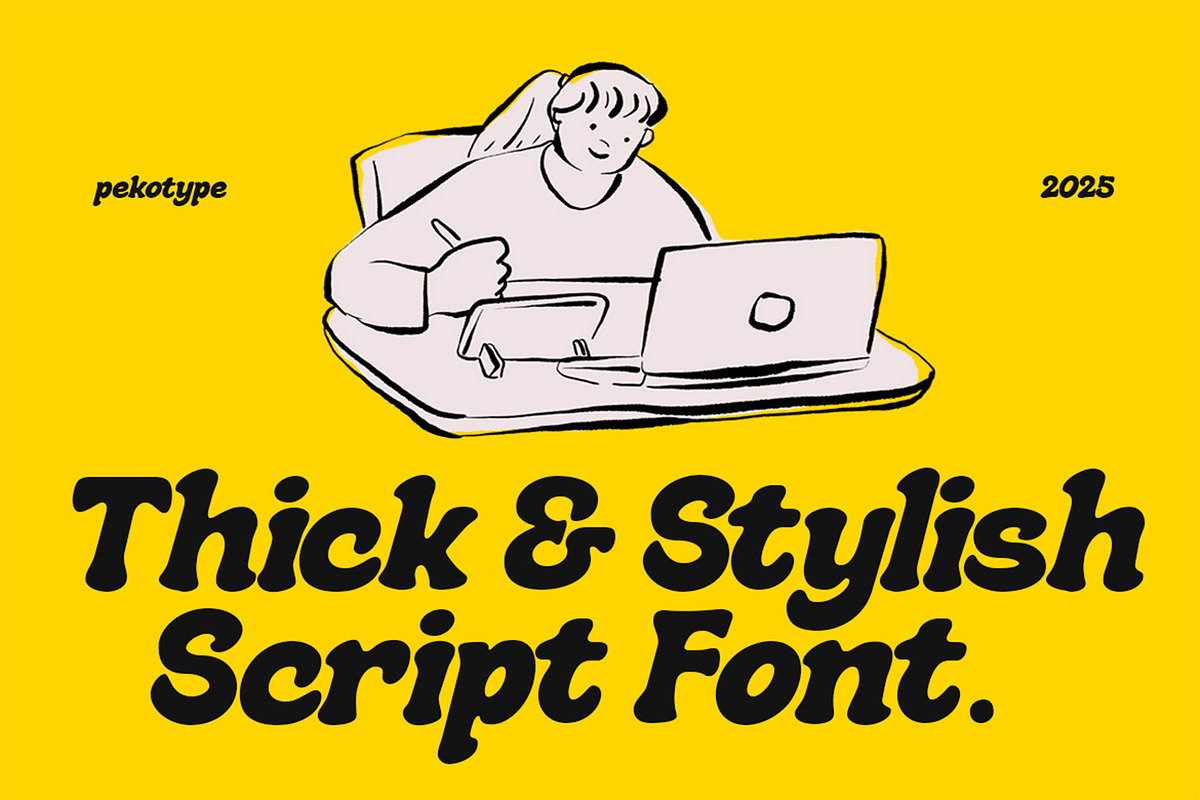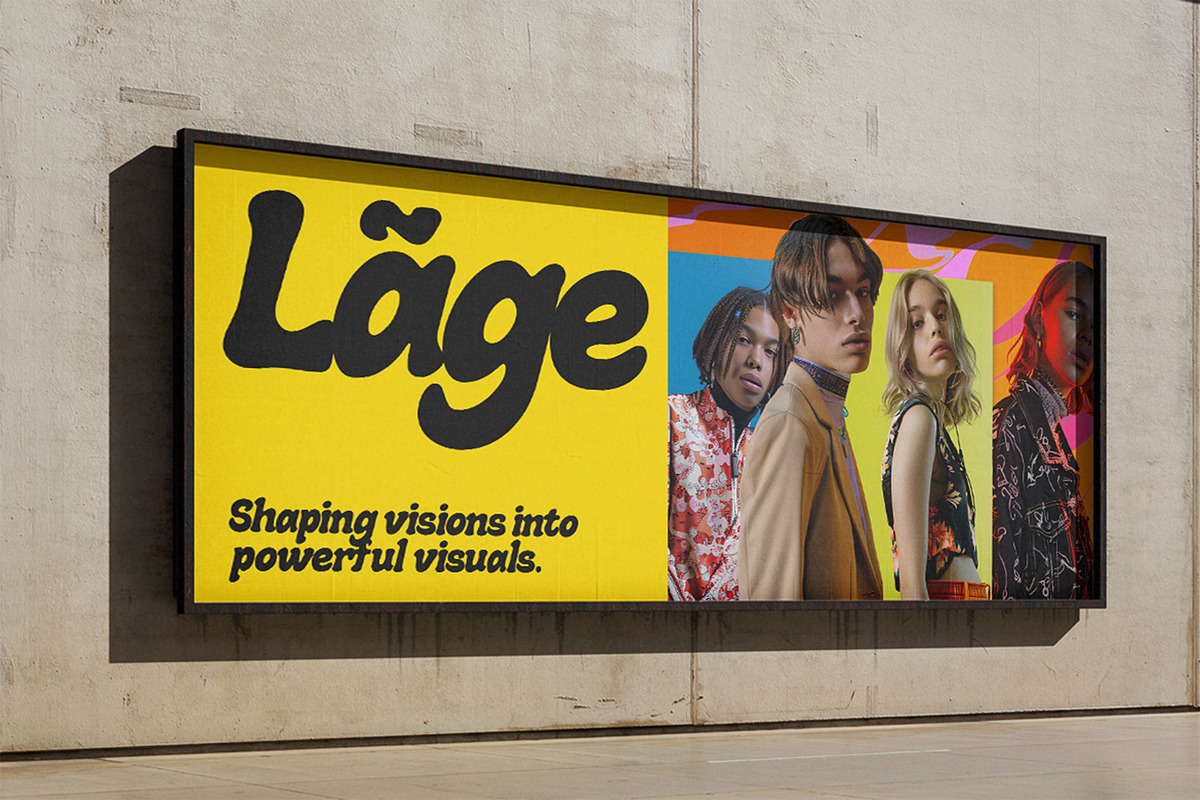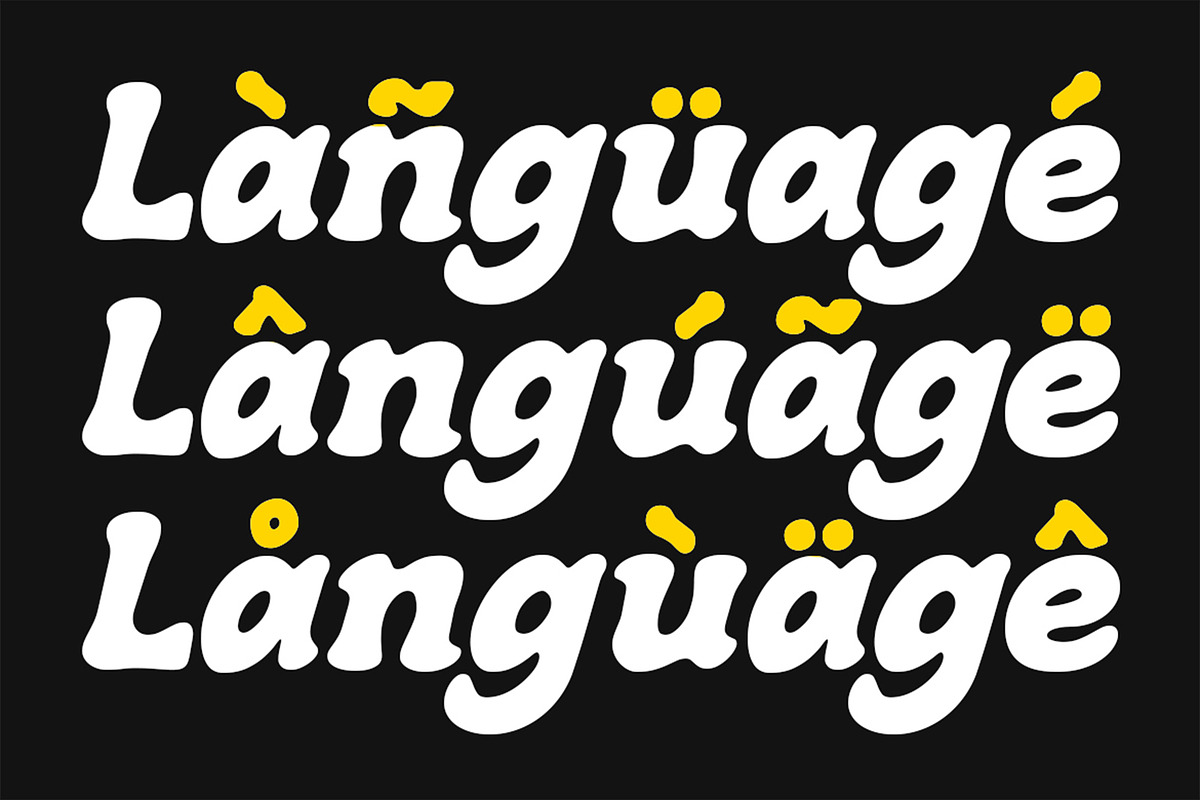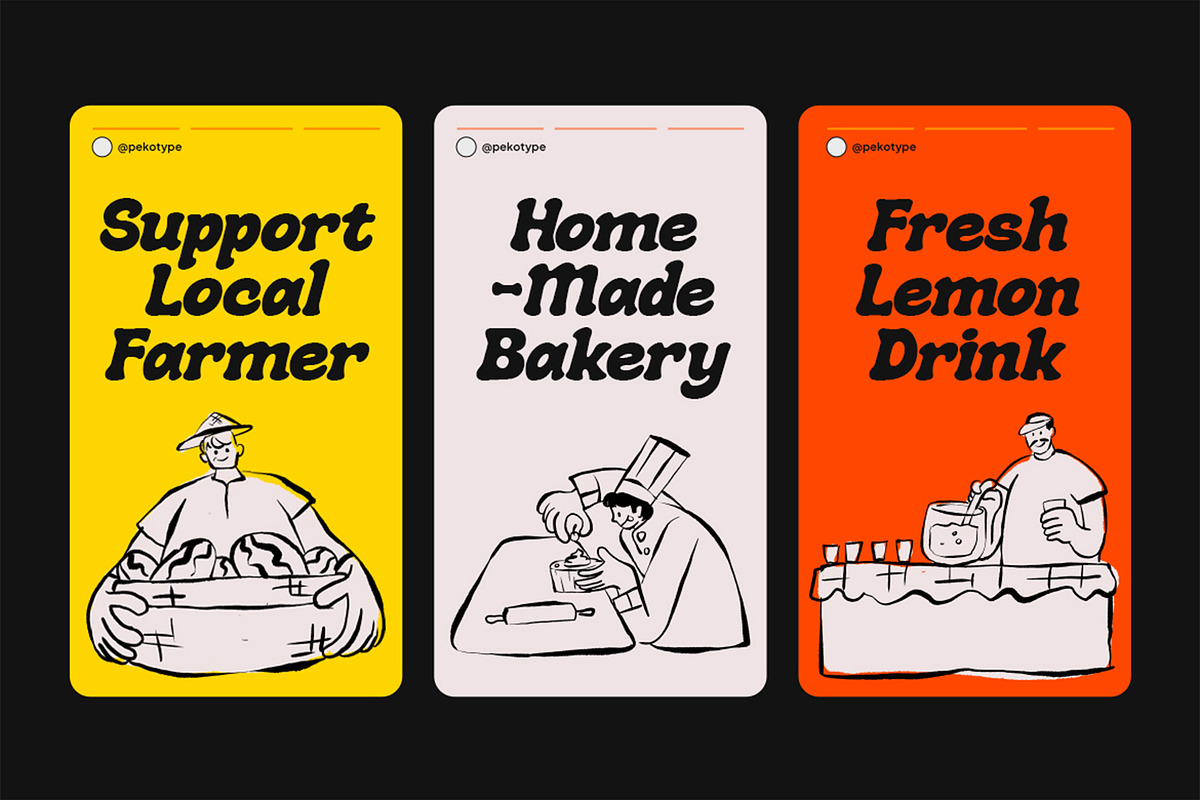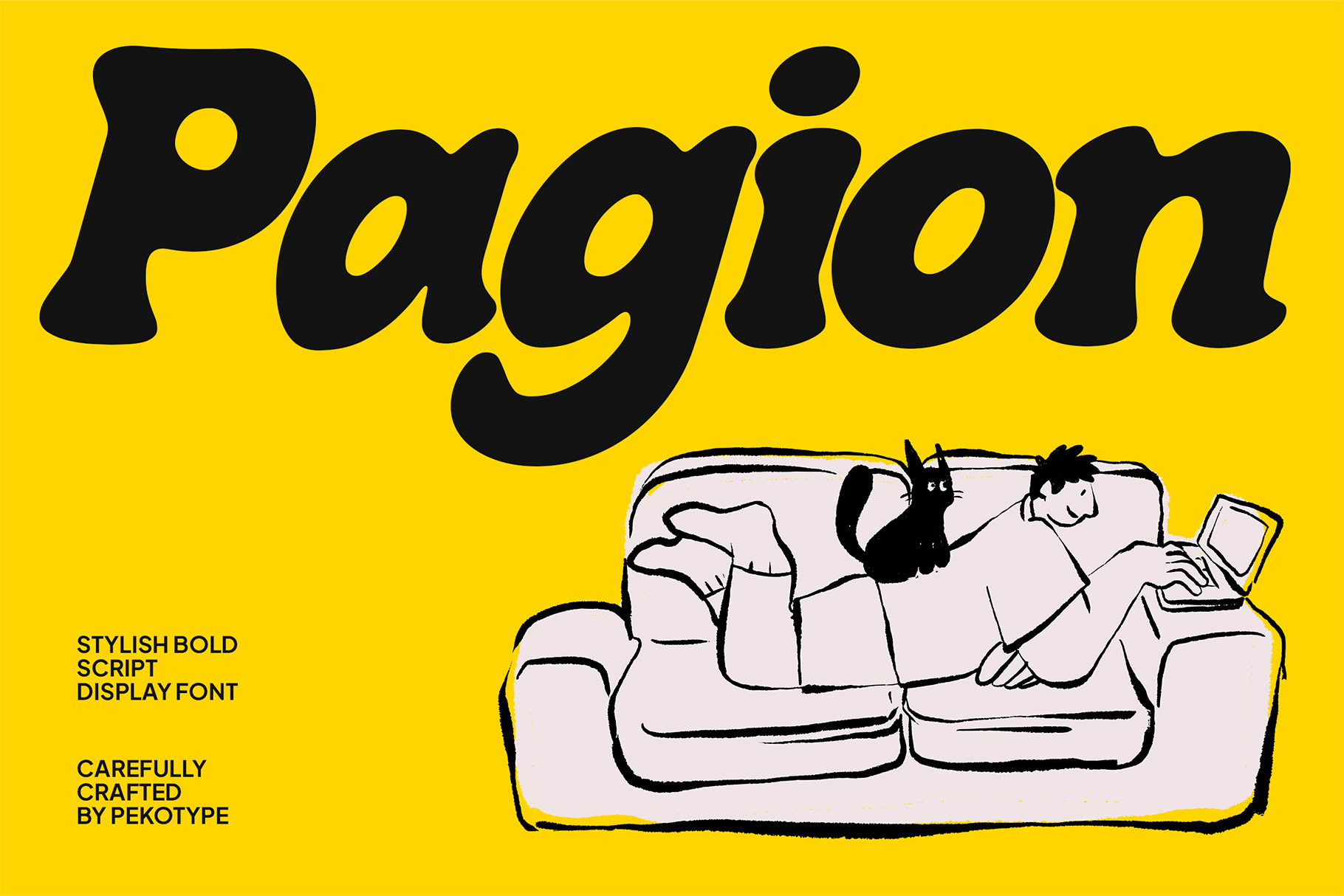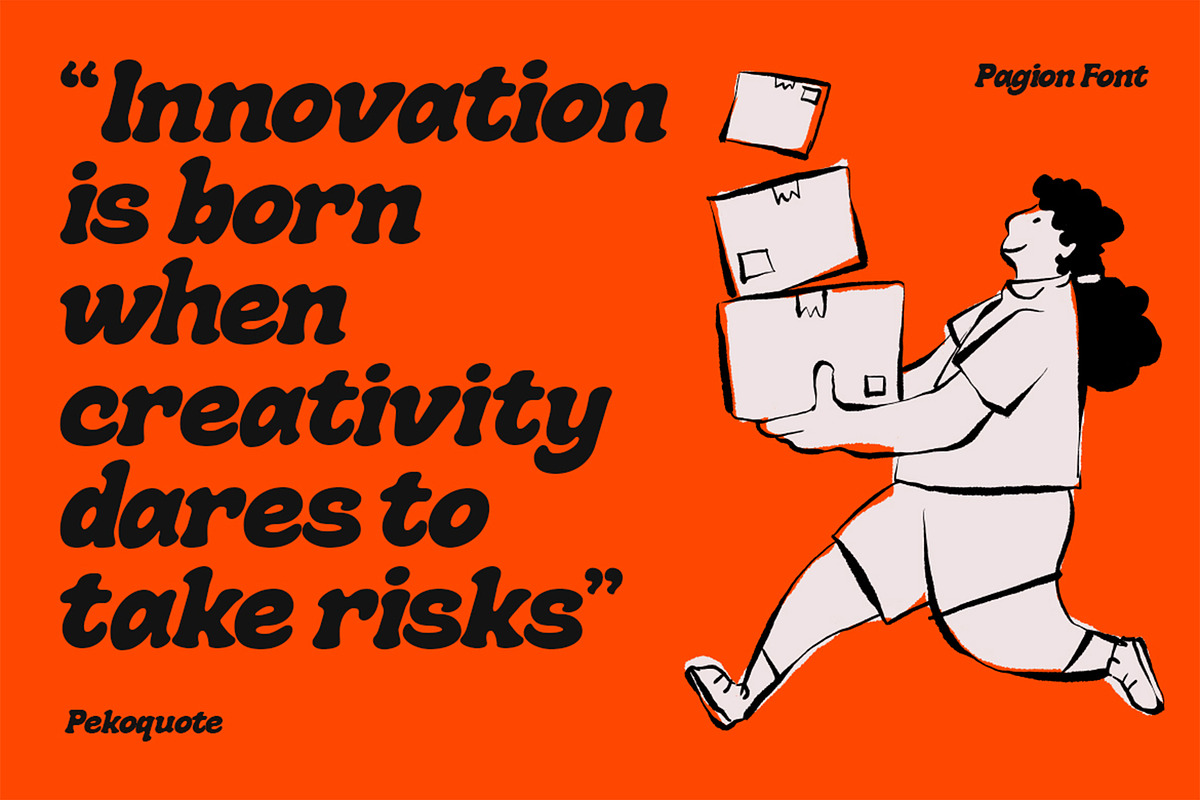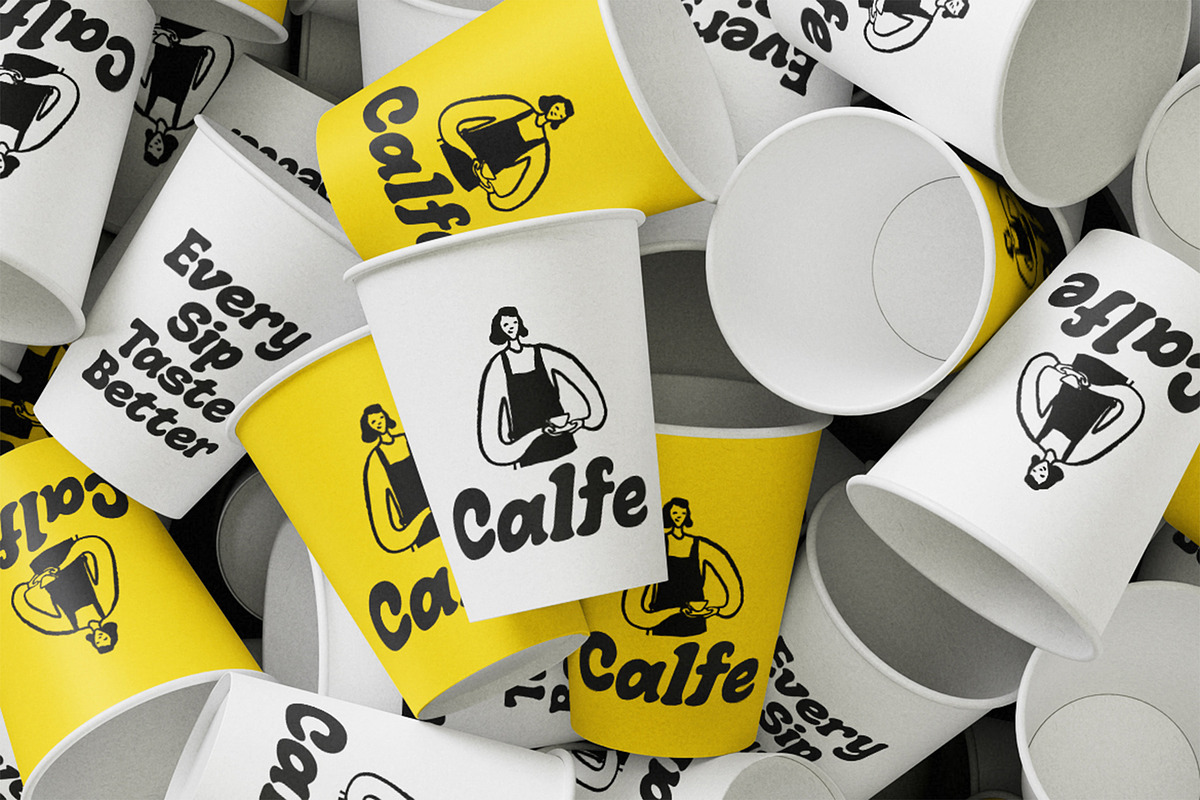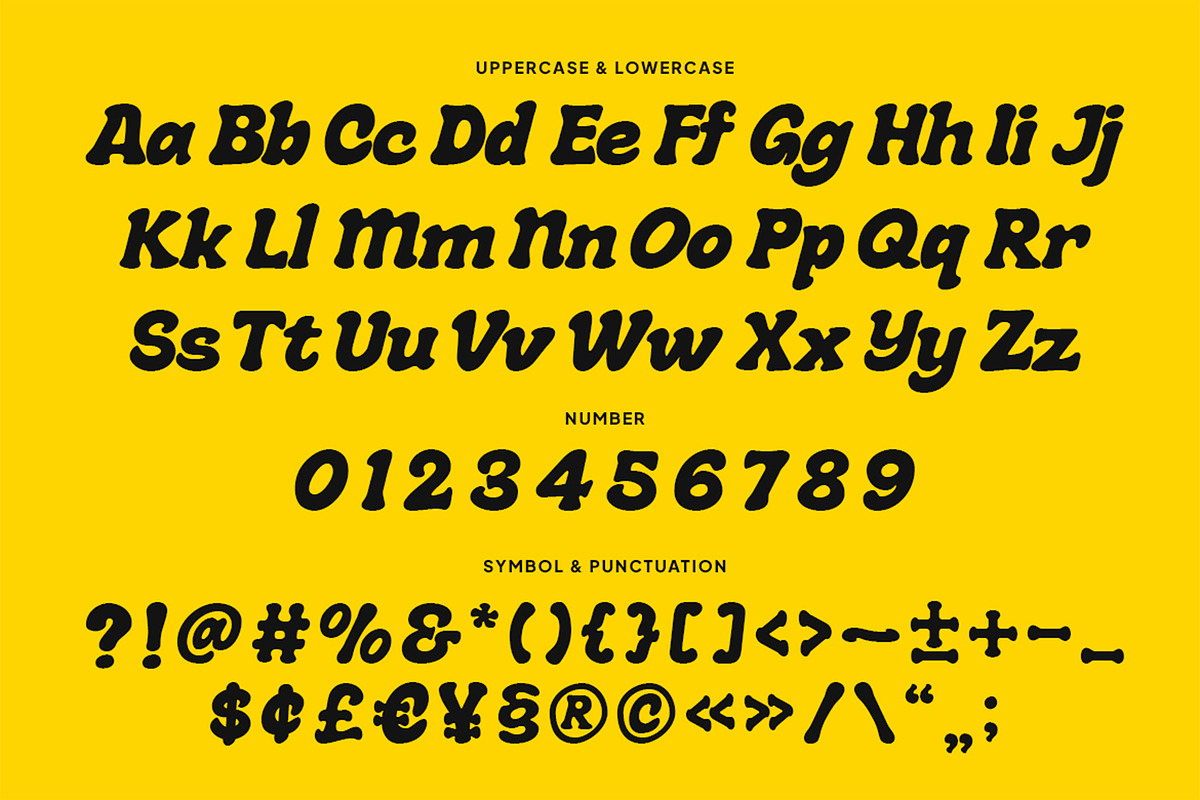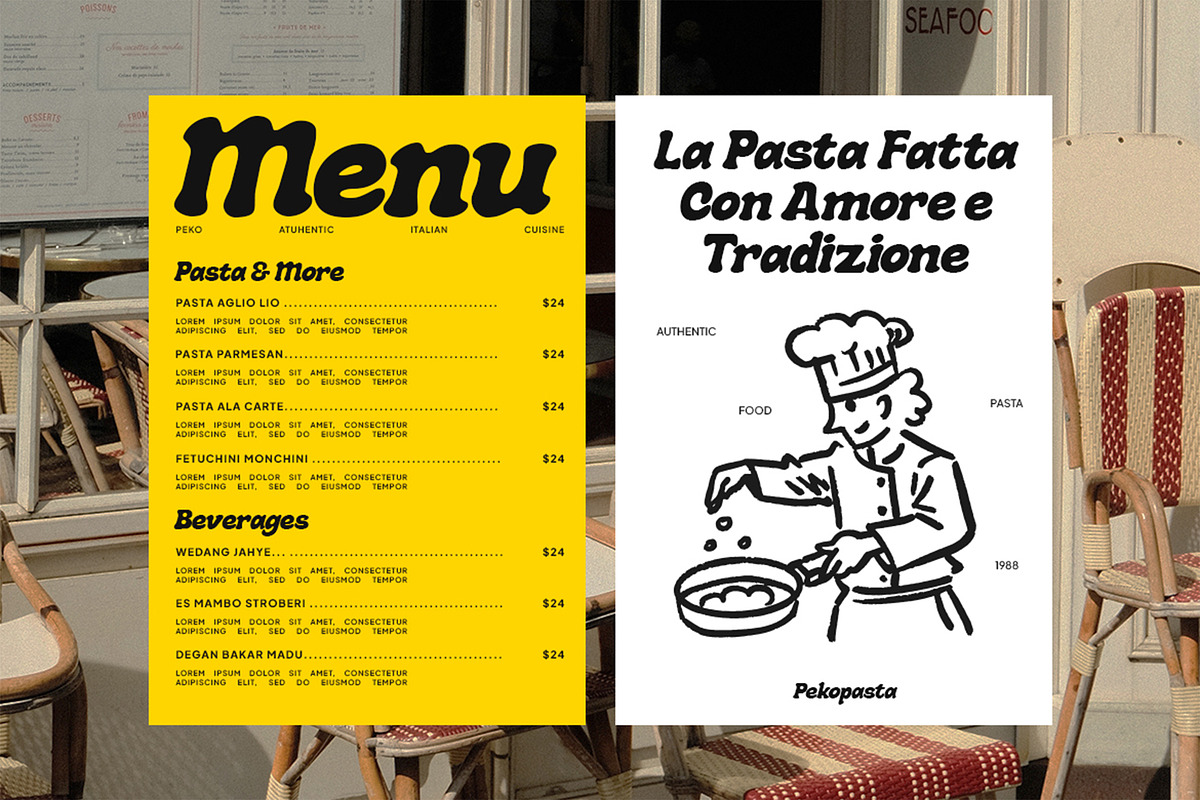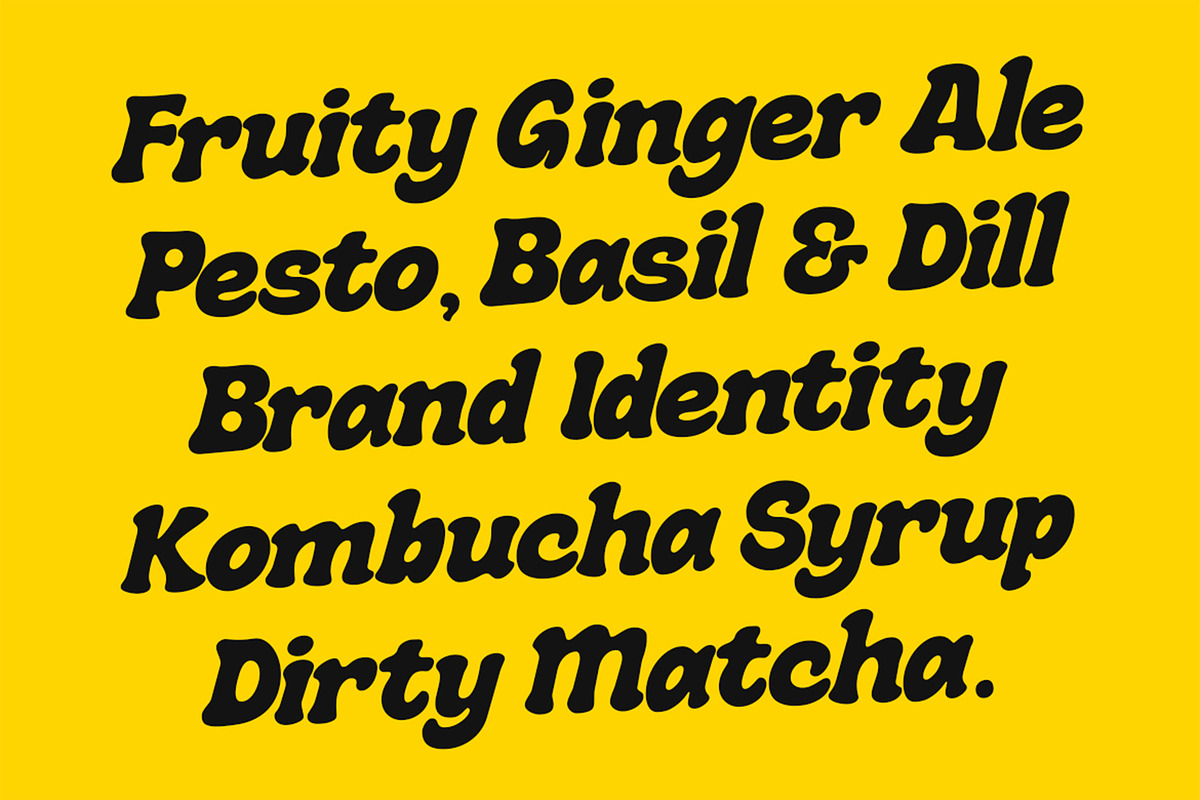
Pagion - Bold Stylish Script Font
Pagion – Stylish Bold Script Font for Modern Branding
Bring personality and style into your design with PAGION, a bold script display font crafted to make your brand stand out. With its stylish curves, strong strokes, and catchy flow, PAGION captures attention, making it the perfect choice for modern branding.
This font blends the charm of handwritten script with the confidence of bold display typography, creating a balance that feels both approachable and impactful. PAGION works beautifully for café branding, food packaging, restaurant logos, social media campaigns, marketing materials, and promotional graphics. Its playful yet professional look ensures your message leaves a lasting impression.